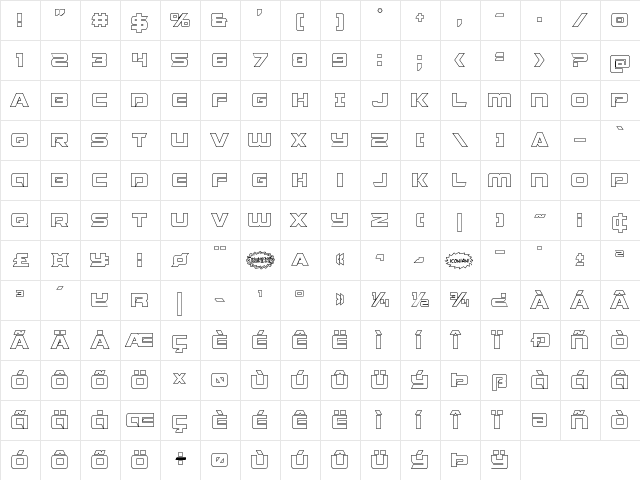
Starduster Shadow Regular
Design Context for Starduster Shadow Typeface
Starduster Shadow is built around its visual character rather than neutral utility — its distinctive forms are designed to make an impression at display sizes.
Font Pairing: Pair with a clean neutral sans-serif for body copy to let Starduster Shadow's character lead without overwhelming the composition.
Pro Tip: Use Starduster Shadow exclusively at display sizes — it was designed to be seen, not read at length. Let a neutral companion handle body copy.